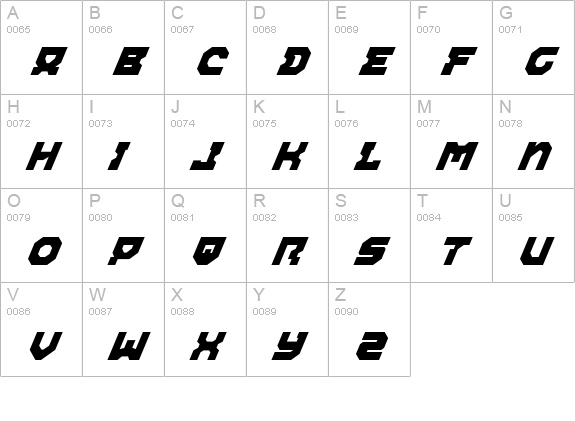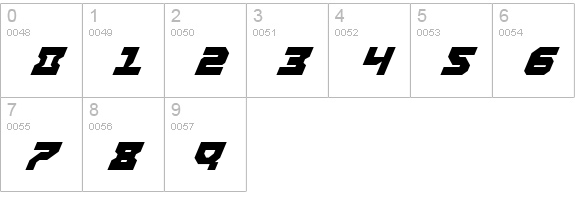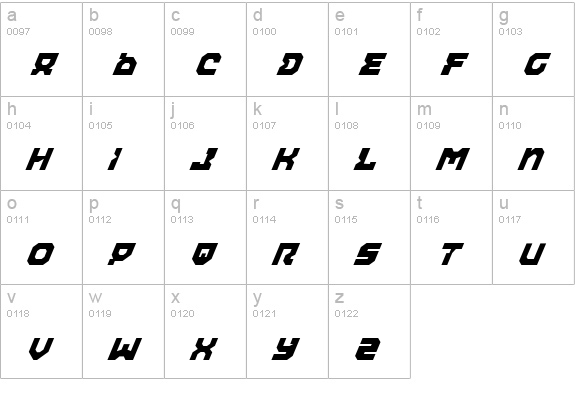
Airacobra Italic is a distinctive, italic variant in the Airacobra typeface family \xE2\x80\x94 well suited to design and typography projects.
Airacobra Italic is a sleek and modern font that exudes elegance and sophistication. Its slanted design adds a touch of flair to any project, making it perfect for use in headings, logos, and other design elements. The italicized letters flow seamlessly together, creating a cohesive and visually appealing look. What sets Airacobra Italic apart is that it is available for free download at FontsMarket.com. This means that you can easily access this stylish font without any cost, making it a convenient and budget-friendly option for your design needs. Whether you're working on a personal project or a professional assignment, Airacobra Italic is sure to elevate your designs with its distinctive charm and versatility.